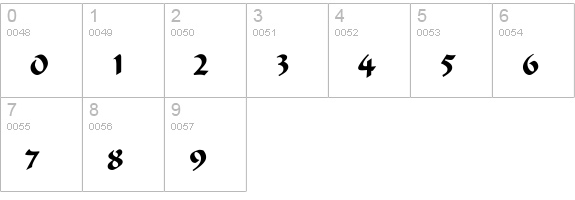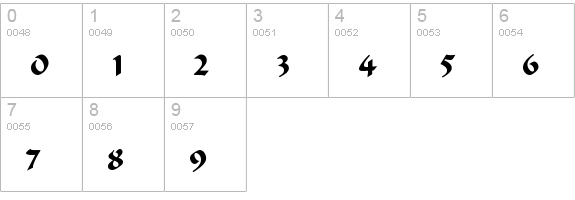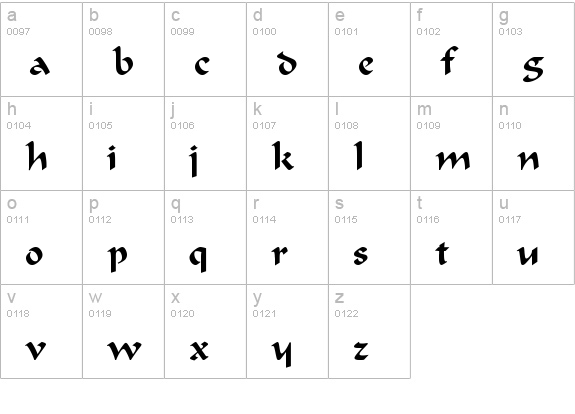
Bodacious-Normal Font Details
Bodacious-Normal is the standard, neutral variant in the Bodacious typeface family \xE2\x80\x94 well suited to general body text, paragraphs, and standard typographic work.